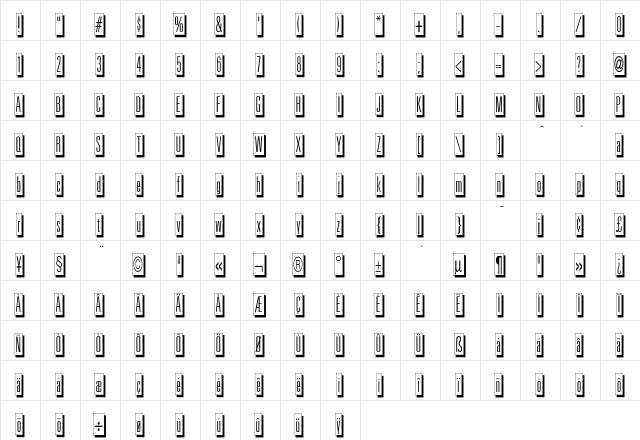
Image Club
Design Context for Image Typeface
Image is a composed and adaptable typeface that performs quietly and consistently across a wide range of design contexts.
Pro Tip: Use Image in both headline and body roles to test its range before committing to a single application.